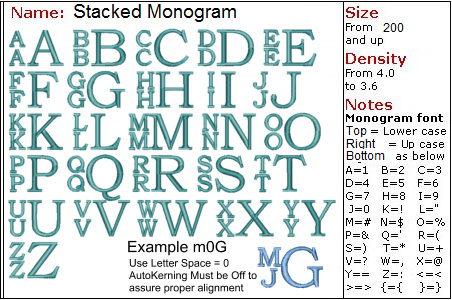
Stacked Monogram
This font assembles the letters in a stacked arrangement as shown. In order to get proper alignment you must usea letter space of 0 and disable auto kerning